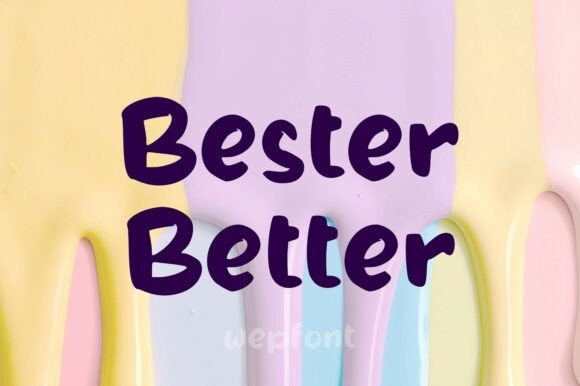
Introducing Bester Better: The Ultimate Handwritten Display Font for Joyful Designs
Are you tired of using the same old fonts in your designs? Look no further! Meet “Bester Better,” a delightfully energetic handwritten display font that’s sure to add a dash of whimsical appeal to your projects. With its bold, rounded characters and slightly misaligned, hand-drawn style, this font is perfect for designs that require a youthful and authentic touch.
The Characteristics of Bester Better
Bester Better is a carefully crafted font that boasts a range of characteristics that make it perfect for joyful designs. Its bold, rounded characters are instantly eye-catching, while its slightly misaligned style gives it a carefree allure that’s hard to ignore. The font is also rich with an inclusive set of standard punctuation, making it easy to use in a diverse mix of design scapes.
Ideal for Joyful Projects
Bester Better is ideal for projects that pulsate with joy, fun, and a bubbly personality. Think captivating children’s items, charming candy stores, effervescent eateries, or lively public events. The font’s eye-catching style only adds to its buoyancy, making it a superb option for joyful messages or stirring up warm emotions. Whether you’re designing a t-shirt, tote bag, or any merchandise in need of a hearty chuckle, Bester Better is the perfect choice.
What Makes Bester Better So Special?
So what makes Bester Better so special? For starters, its unique blend of bold, rounded characters and whimsical style makes it a standout font that’s sure to grab attention. Additionally, its inclusive set of standard punctuation makes it easy to use in a wide range of design projects. And with its seamless compatibility with all major design platforms, you can use Bester Better to create stunning designs that will look great on any device or platform.
How to Use Bester Better in Your Designs
- Use Bester Better as a headline font to add a touch of whimsy to your designs.
- Pair Bester Better with a simpler font to create a striking contrast.
In conclusion, Bester Better is a truly unique and versatile font that’s perfect for designers and crafters who want to add a touch of whimsy to their designs. With its bold, rounded characters, slightly misaligned style, and inclusive set of standard punctuation, Bester Better is ideal for joyful projects that require a youthful and authentic touch. And with its seamless compatibility with all major design platforms, you can use Bester Better to create stunning designs that will look great on any device or platform. So why wait? Download Bester Better today and start creating designs that will leave a lasting impression!
Get Ready to Add a Touch of Whimsy to Your Designs!